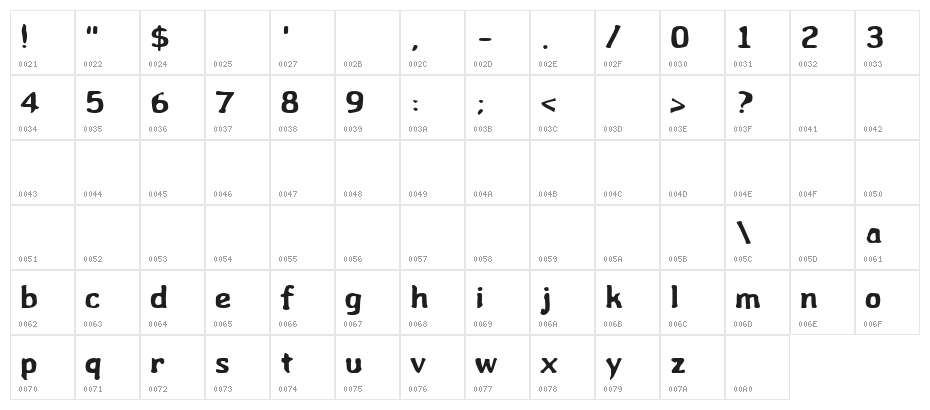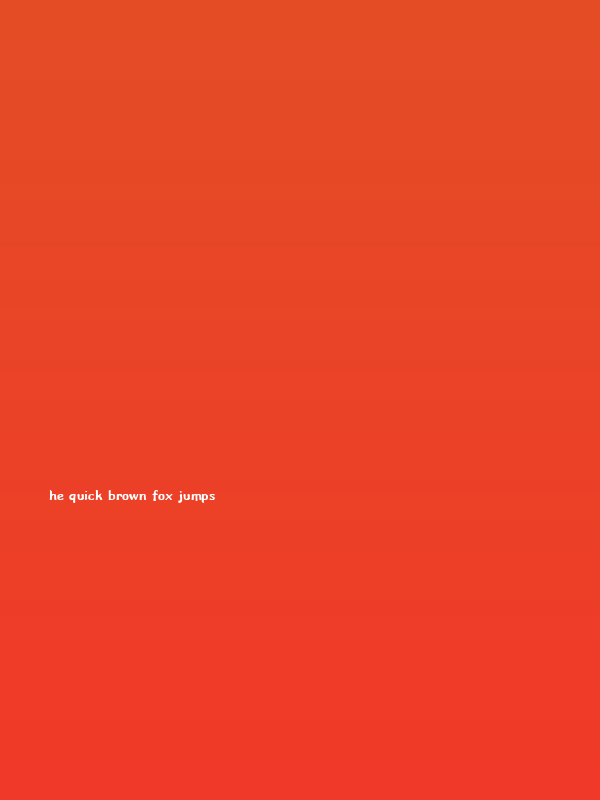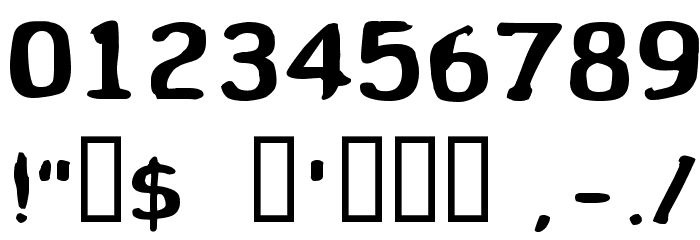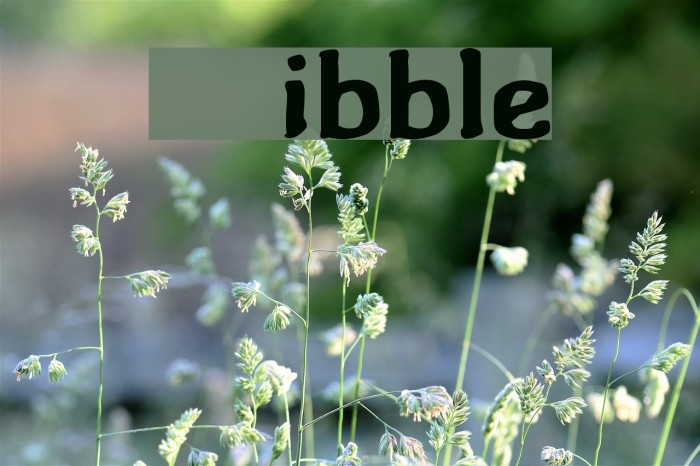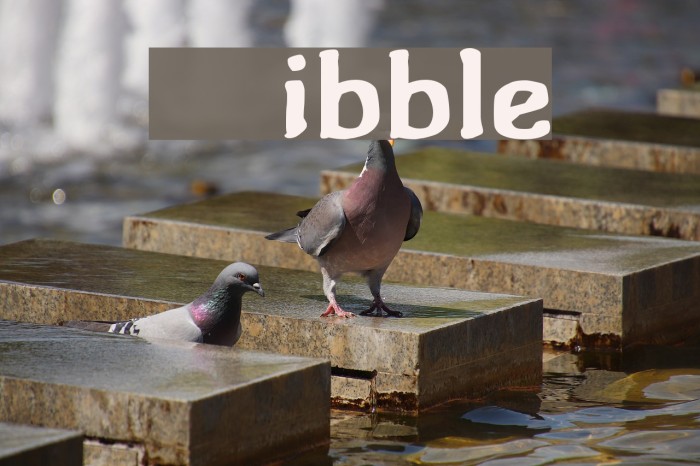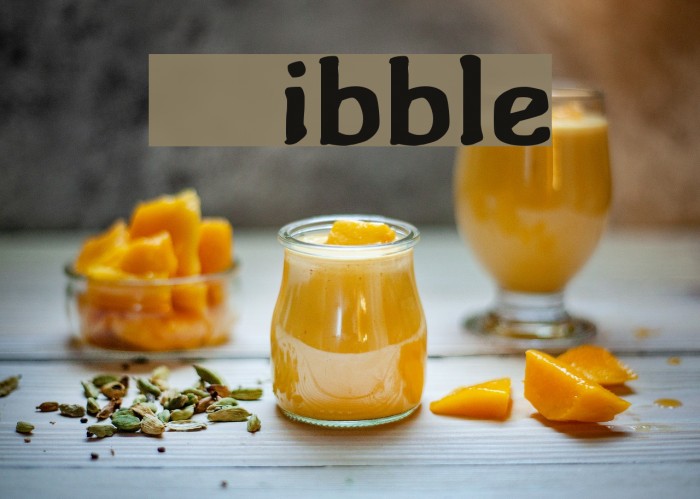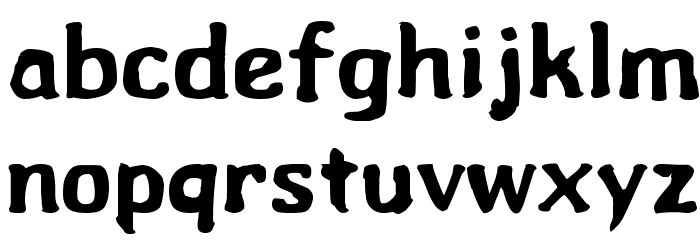
Wibble Font
Wibble Description
This font features a playful and slightly irregular style, characterized by its bold and rounded letterforms. The strokes are thick and consistent, giving it a strong presence on the page. The characters have a hand-drawn quality, with subtle variations that add to its charm. The lowercase letters are particularly distinctive, with unique curves and angles that set them apart. The numerals are equally bold and maintain the same playful aesthetic. This font is well-suited for projects that require a fun and informal touch, making it ideal for children's books, playful branding, or creative posters.
| Overall Style | Playful, Informal |
| Proposed Projects | Children's books, playful branding, creative posters, informal invitations. |